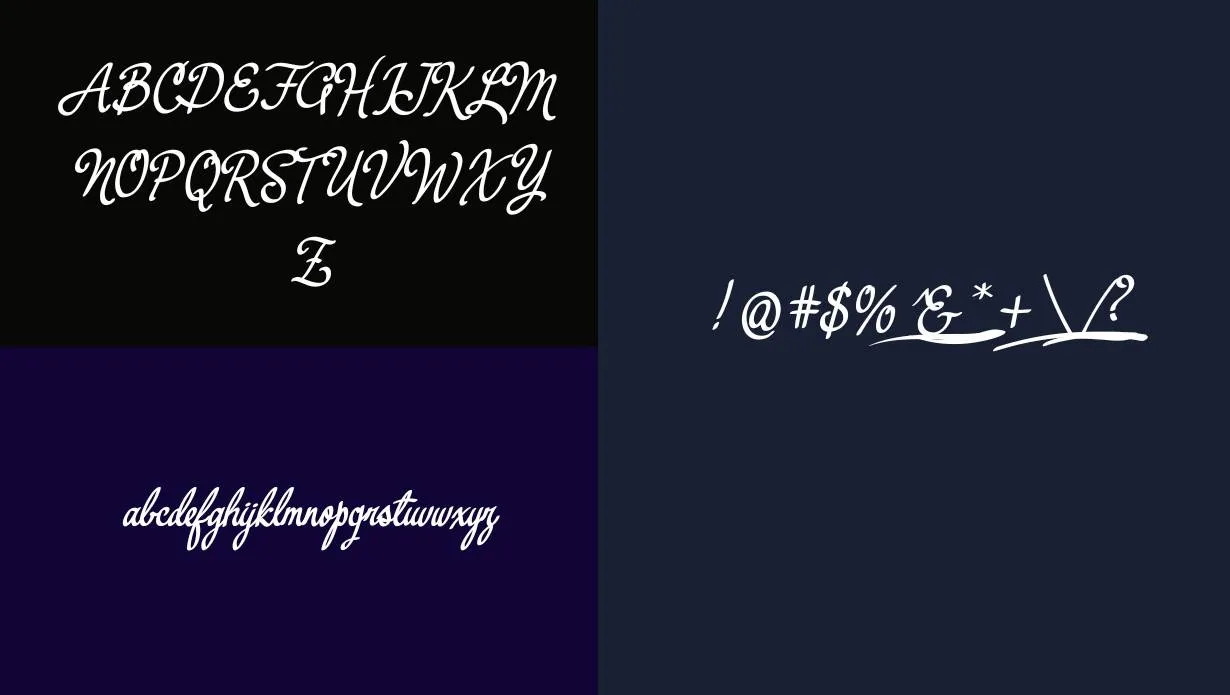
Yerbaluisa Font is like a masterpiece of hand-drawn creativity. Every letter appears to be made with a special touch, bringing a fun and charming vibe to any text. It’s as if the letters hold a tale of their own, infusing the content with a one-of-a-kind and personal style. Dive into the world of Yerbaluisa Font and let your creativity soar!
This font is perfect for injecting creativity and a homemade feel into projects, whether for posters, handmade cards, or any design aiming for an authentic and imaginative vibe. Yerbaluisa Font is a celebration of individuality and creativity, making every word feel like a piece of art.